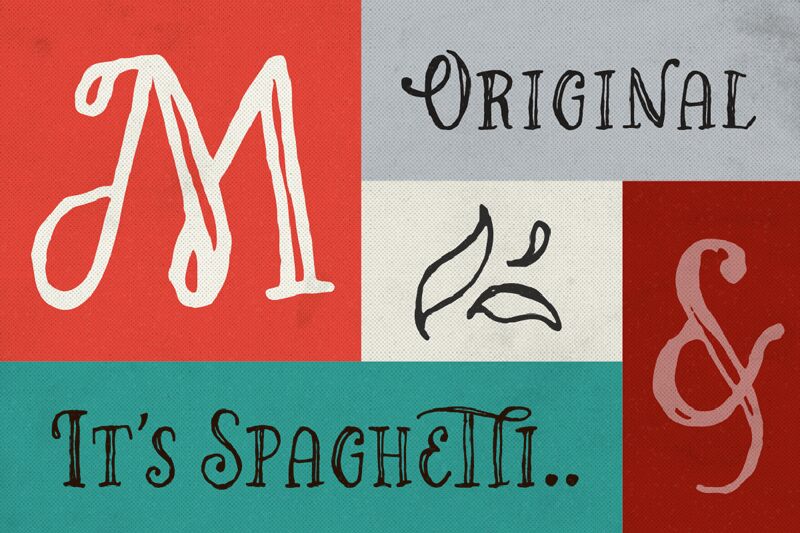
Fetani, the captivating semi-light handwritten font by Renof Olivian, is perfect for projects that require a touch of elegance and personality. Its semi-condensed width makes it ideal for designs where space is at a premium, such as invitations, menus and packaging. The fluid strokes and natural curves of Fetani add a personal touch to logos and branding materials. Use this versatile font to create beautiful social media graphics or eye-catching headlines on your blog or website. Whether you're designing for a wedding or a fashion brand, Fetani is sure to make your project stand out with its unique charm.